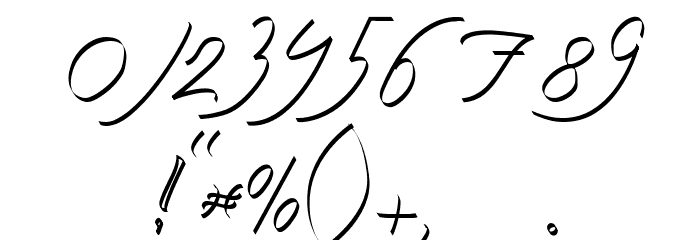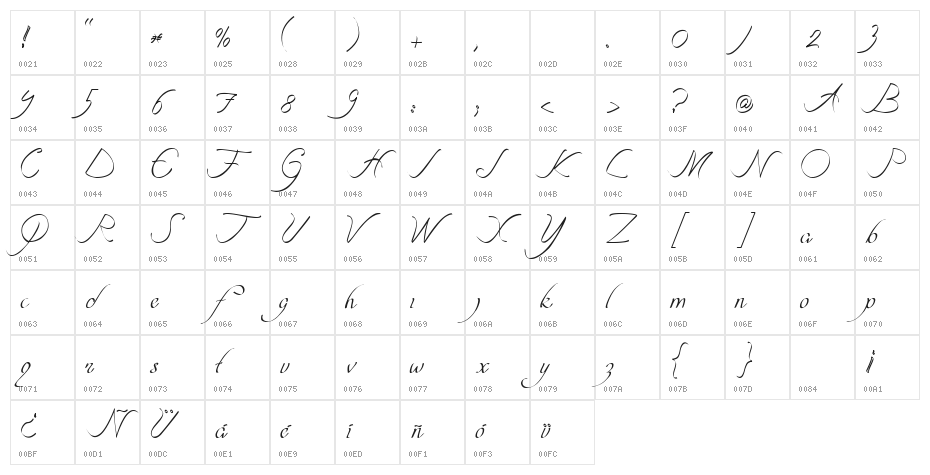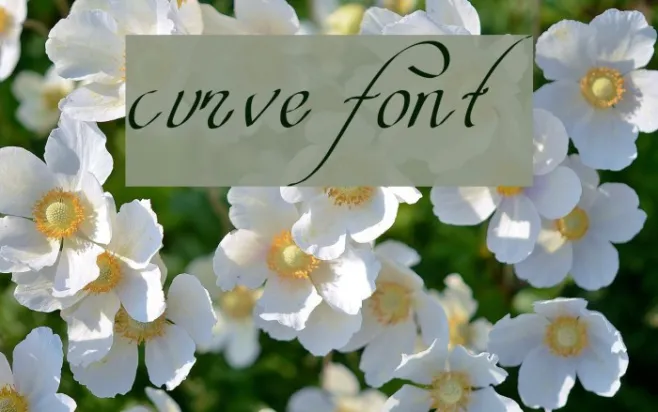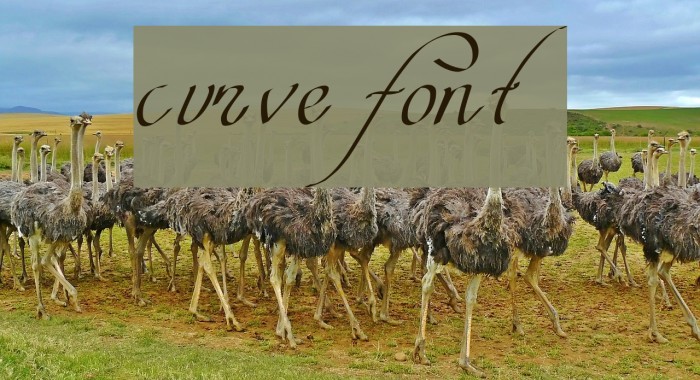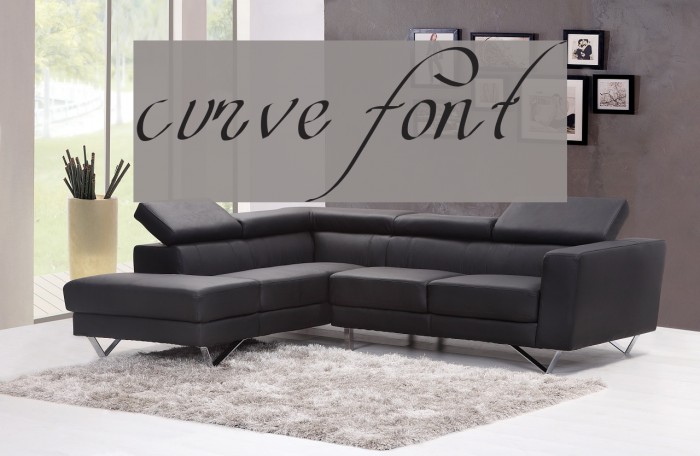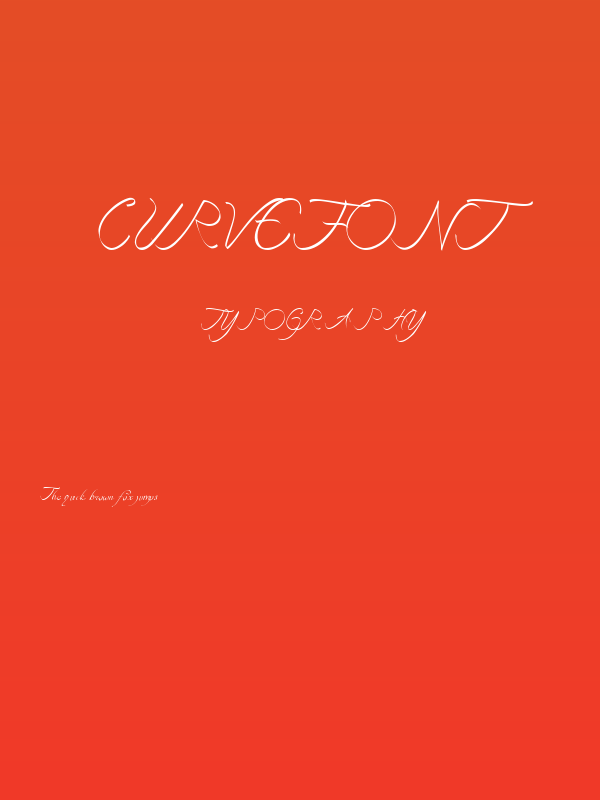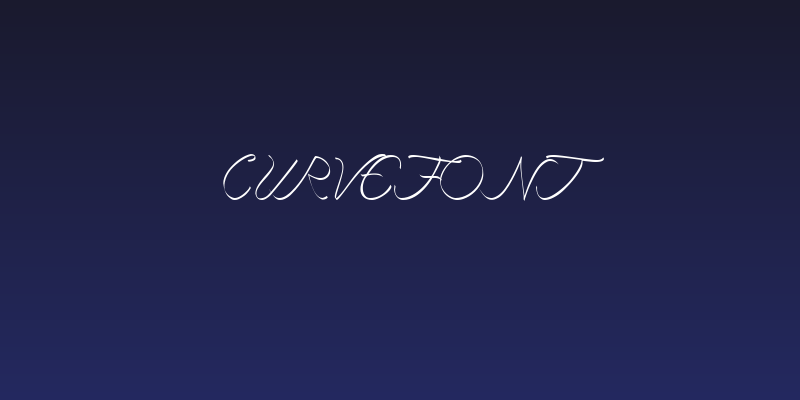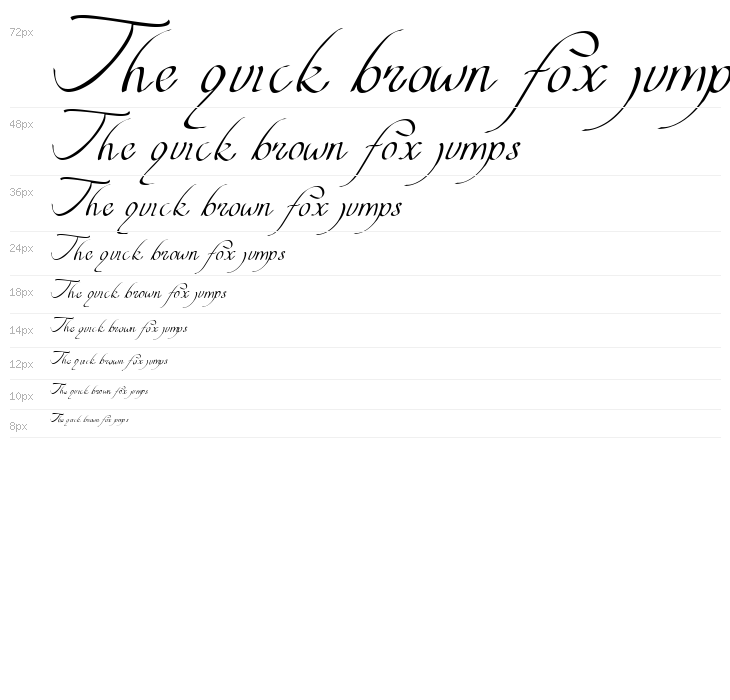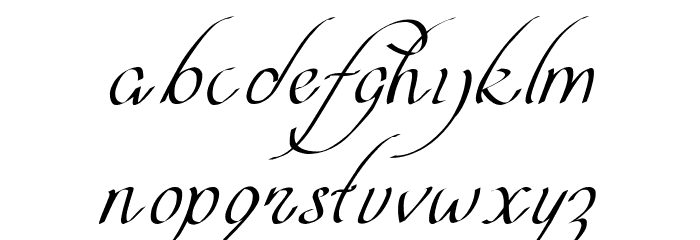
curve font Font
curve font Description
This elegant script font features fluid, cursive strokes that convey a sense of sophistication and grace. The uppercase letters are characterized by sweeping curves and delicate flourishes, while the lowercase letters maintain a consistent flow with subtle variations in stroke width. The numerals and special characters are designed with the same attention to detail, ensuring a cohesive look across all elements. The font's overall appearance is both classic and refined, making it suitable for formal invitations, branding, and decorative purposes.
Jair Andrade
| Proposed Projects | Ideal for wedding invitations, luxury branding, elegant signage, and decorative projects. |